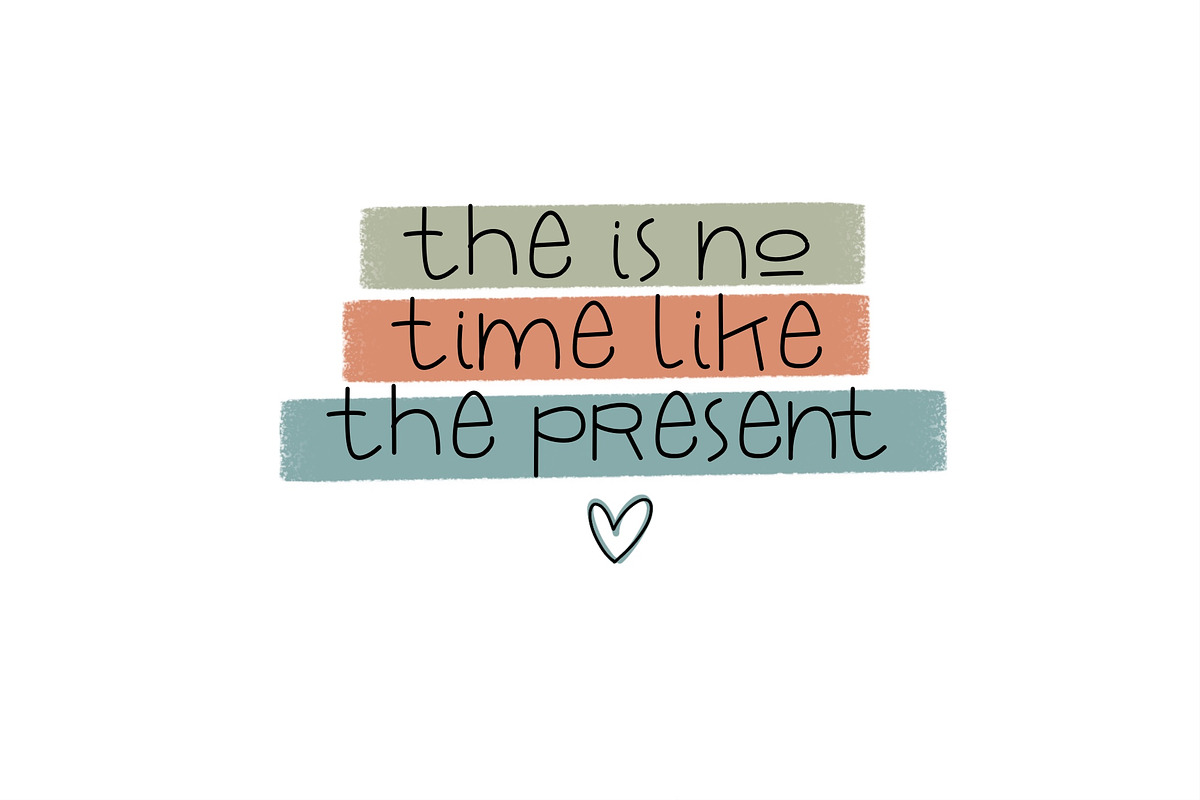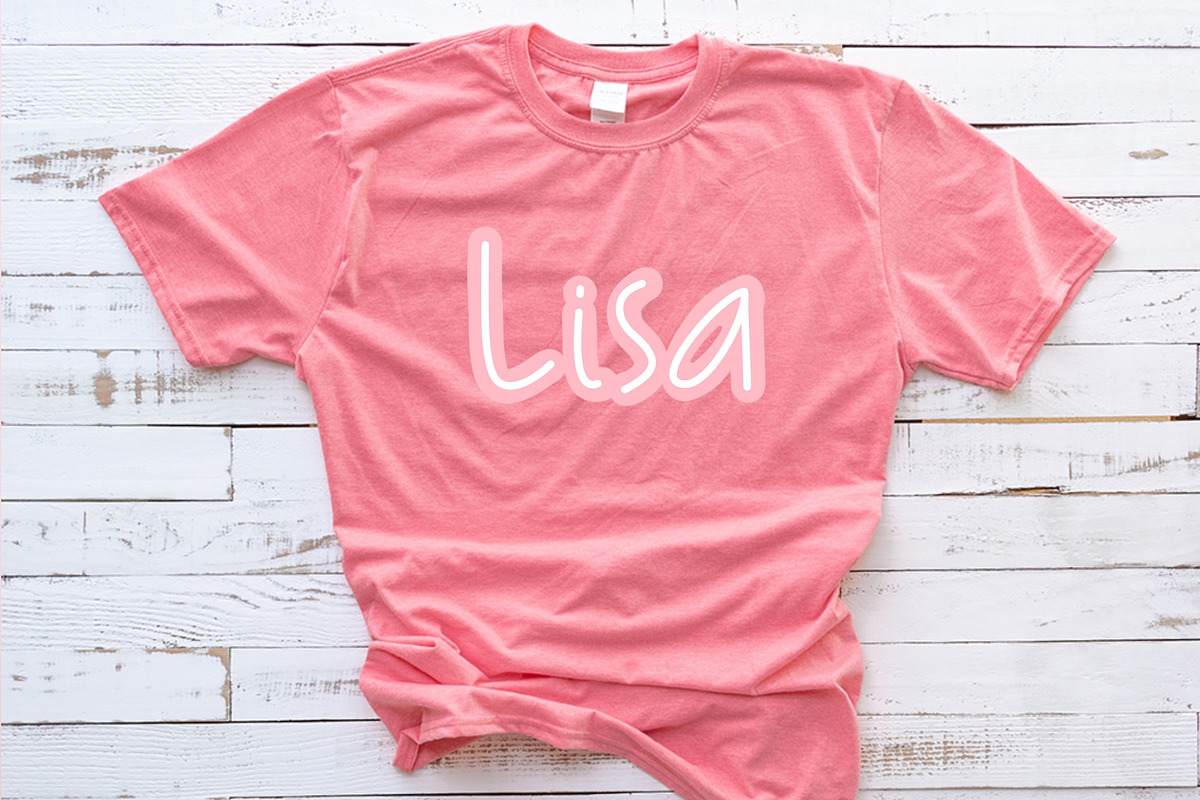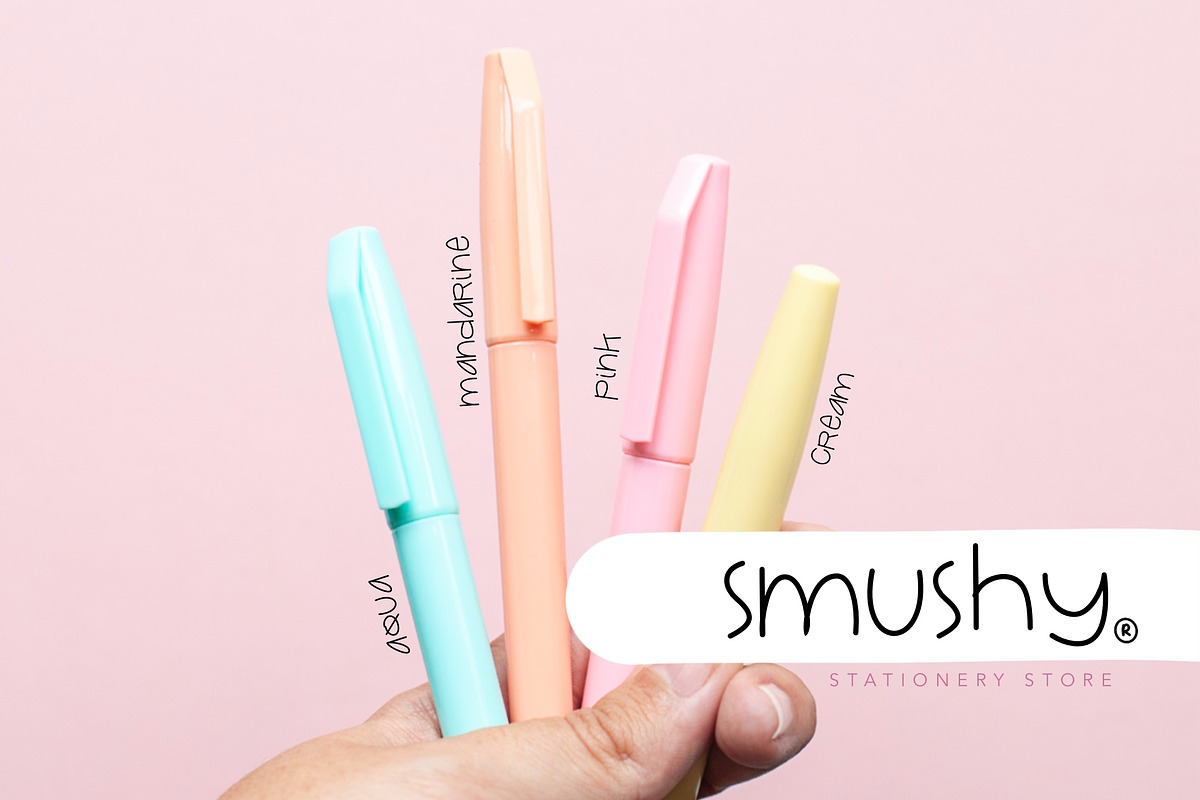
Quakes Font
Quakes Font by Fonts & Printables is a font selected for branding, posters, packaging, typography.
Why Quakes Font is worth a look
Quakes Font by Fonts & Printables fits naturally into Branding, posters, packaging, typography.